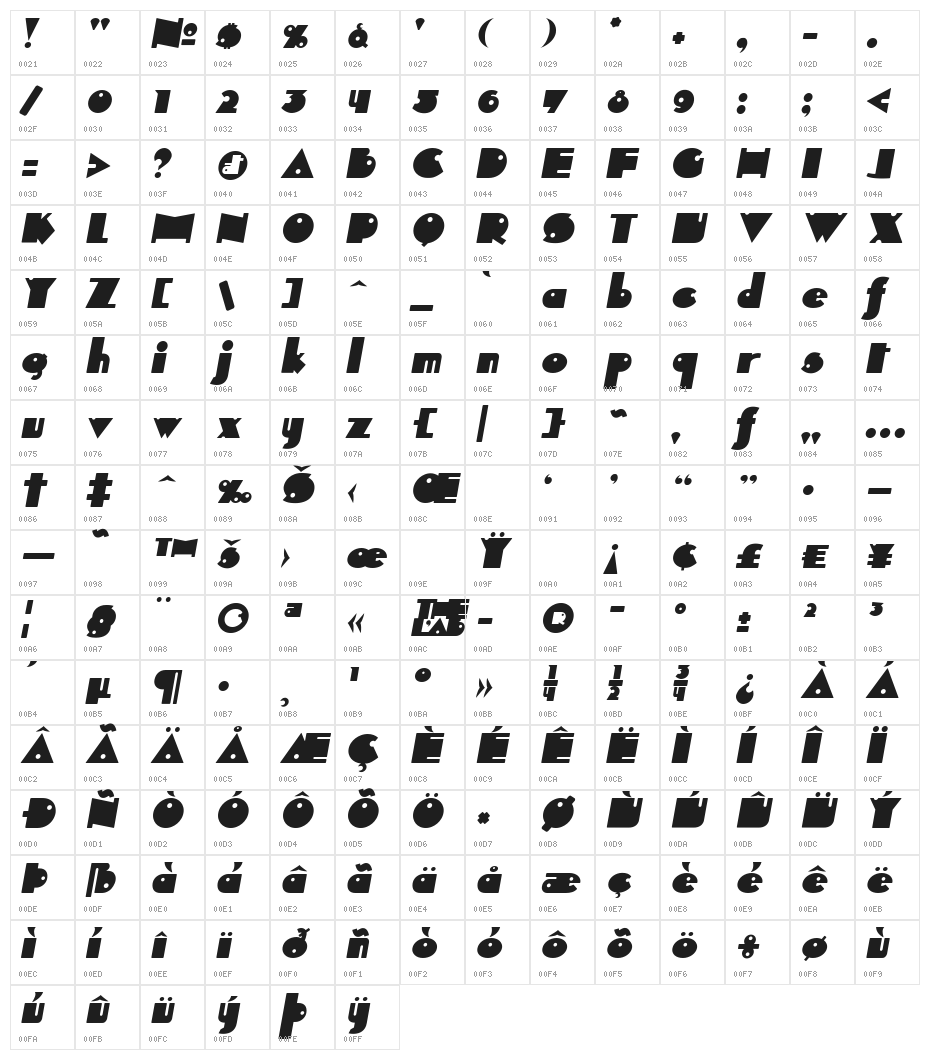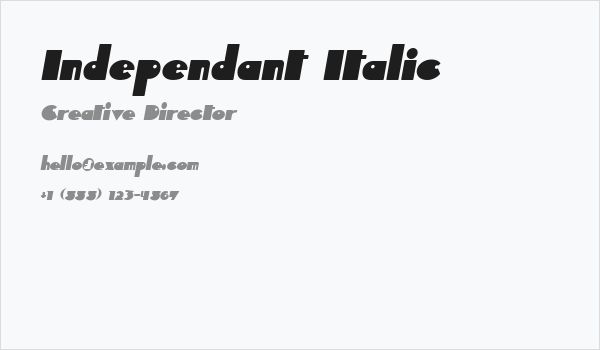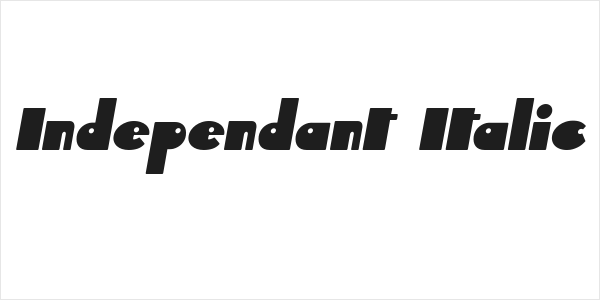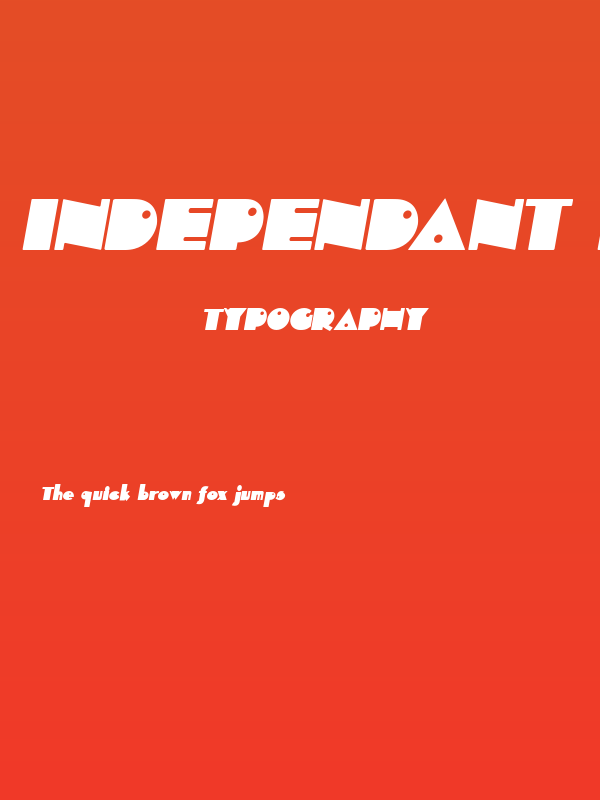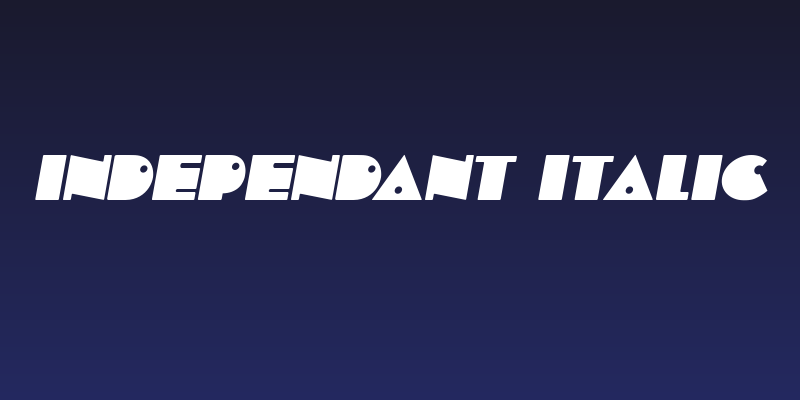
Independant Italic Font
Independant Italic Description
This font features a bold and dynamic style with a strong geometric influence. The characters are heavily stylized, incorporating sharp angles and unique shapes that give it a distinct, modern look. The uppercase letters are particularly striking, with some characters featuring cut-out sections or exaggerated serifs. The lowercase letters maintain a similar boldness, with rounded forms that contrast with the angular uppercase. Numbers and special characters follow the same design principles, ensuring consistency across the font. This font's boldness and unique character shapes make it stand out, ideal for attention-grabbing designs.
| Proposed Projects | Ideal for poster designs, branding projects, and any creative work that requires a bold statement. |